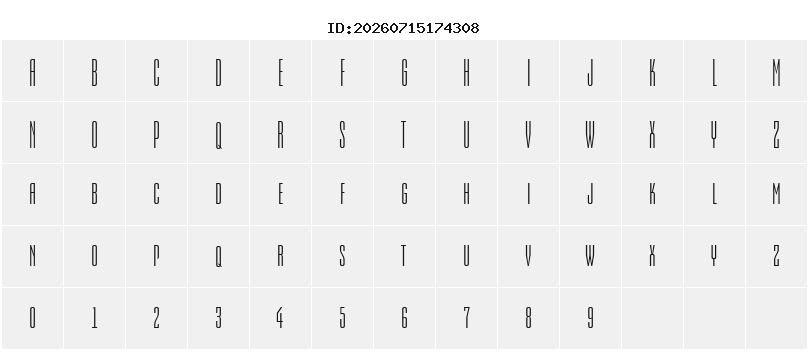
a_EmpirialCpsTtr Preview
About a_EmpirialCpsTtr.ttf
a_EmpirialCpsTtr.ttf is a modern, elegant sans-serif font designed for ultimate readability and visual harmony. Perfect for branding, headlines, web design, and print materials.